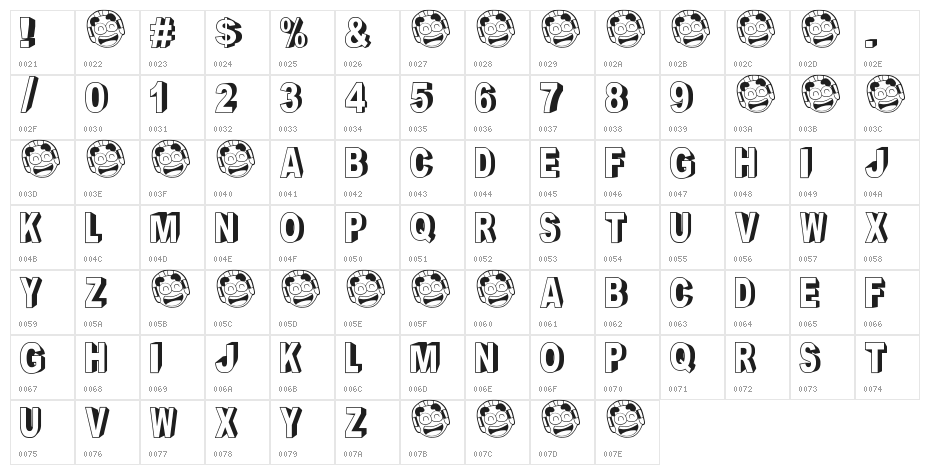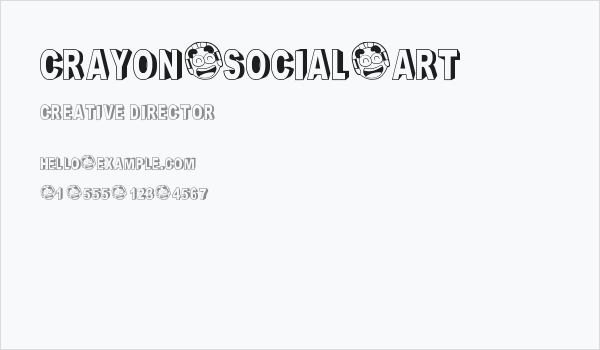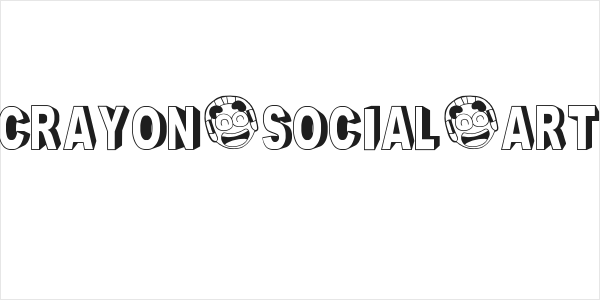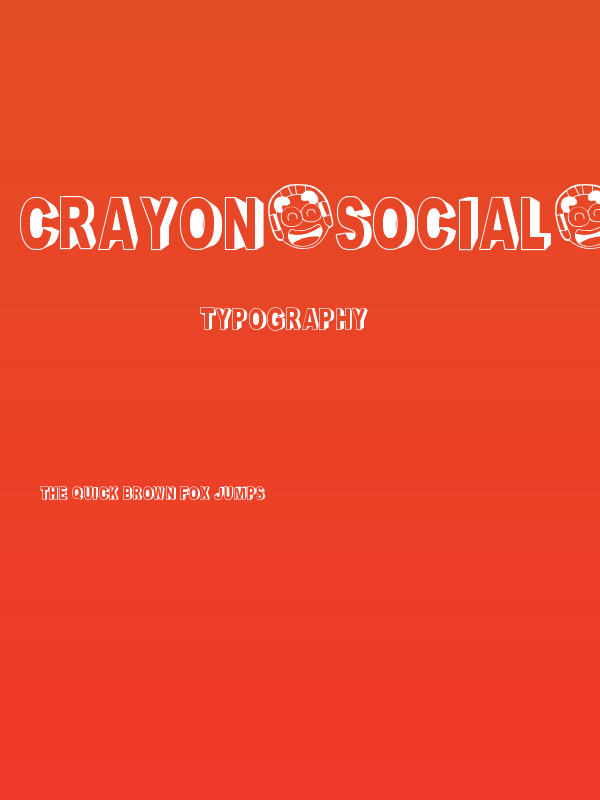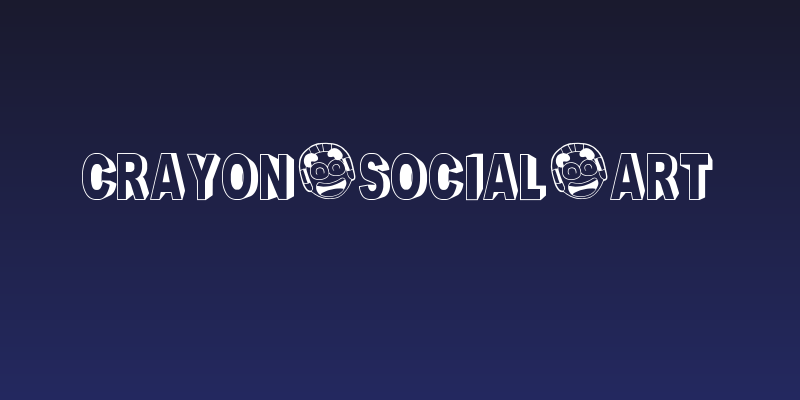
Crayon-Social-Art Font
Crayon-Social-Art Description
This font features a bold, three-dimensional style with a shadow effect that gives it a striking and impactful appearance. Each character is outlined, enhancing its visibility and making it stand out against various backgrounds. The design is consistent across all characters, maintaining a uniform look that is both modern and dynamic. The font's structure is clean and geometric, with sharp angles and straight lines, contributing to its contemporary aesthetic. The shadow effect adds depth, making it suitable for eye-catching designs.
Proposed ProjectsIdeal for posters, headlines, branding, and any project requiring a bold, attention-grabbing typeface.